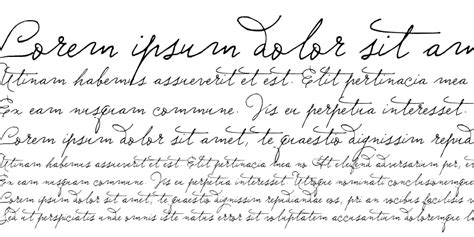
Sudestada Font Generator. Web sudestada is a typeface with distinctive handwritten style and personality. Simply generate text images and share.
Generate cool and amazing fonts by using sudestada font generator. Web sudestada is a typeface with distinctive handwritten style and personality. Simply generate text images and share. An alternate weight provides a large number.
Generate cool and amazing fonts by using sudestada font generator. Generate cool and amazing fonts by using sudestada font generator. Simply generate text images and share. An alternate weight provides a large number. Web sudestada is a typeface with distinctive handwritten style and personality.